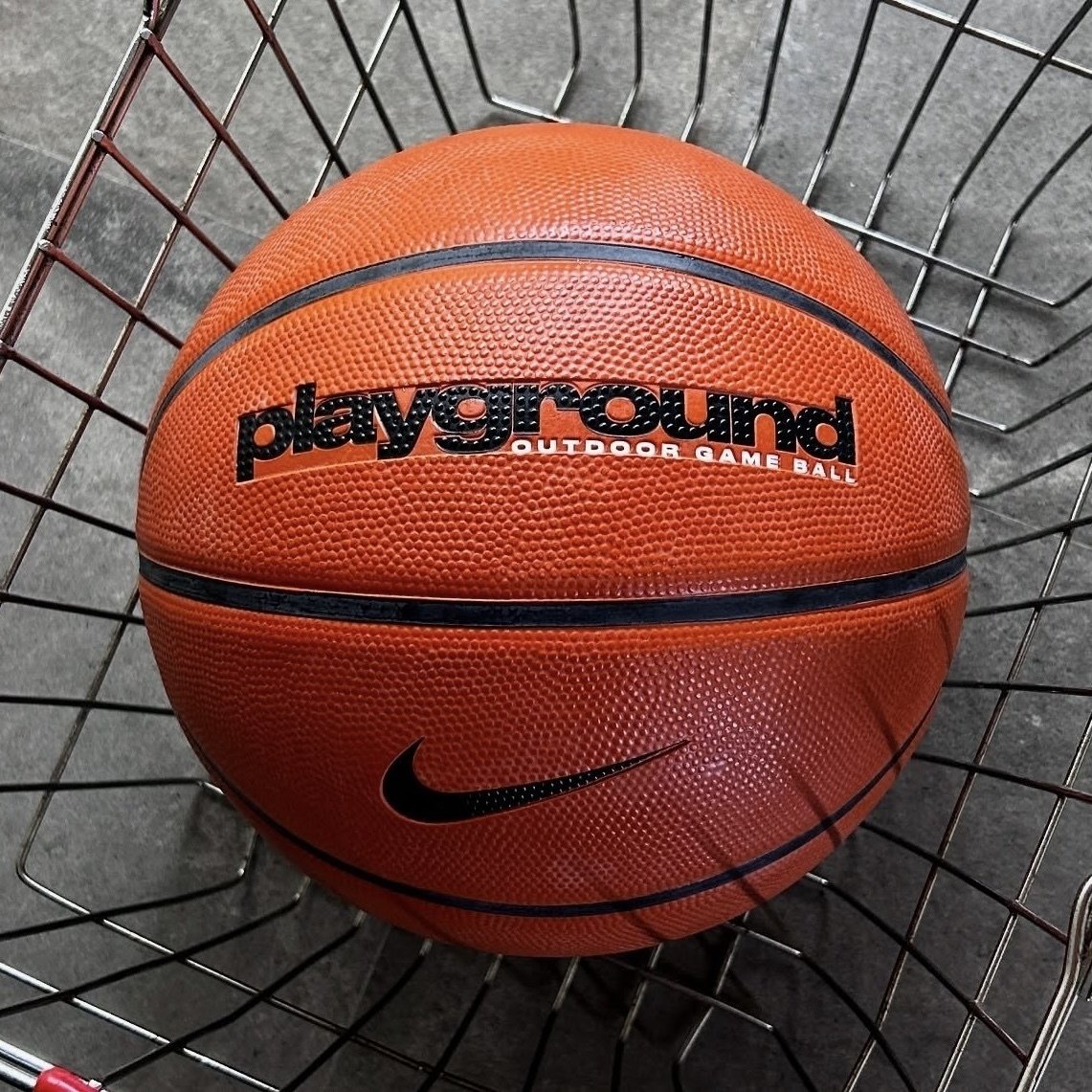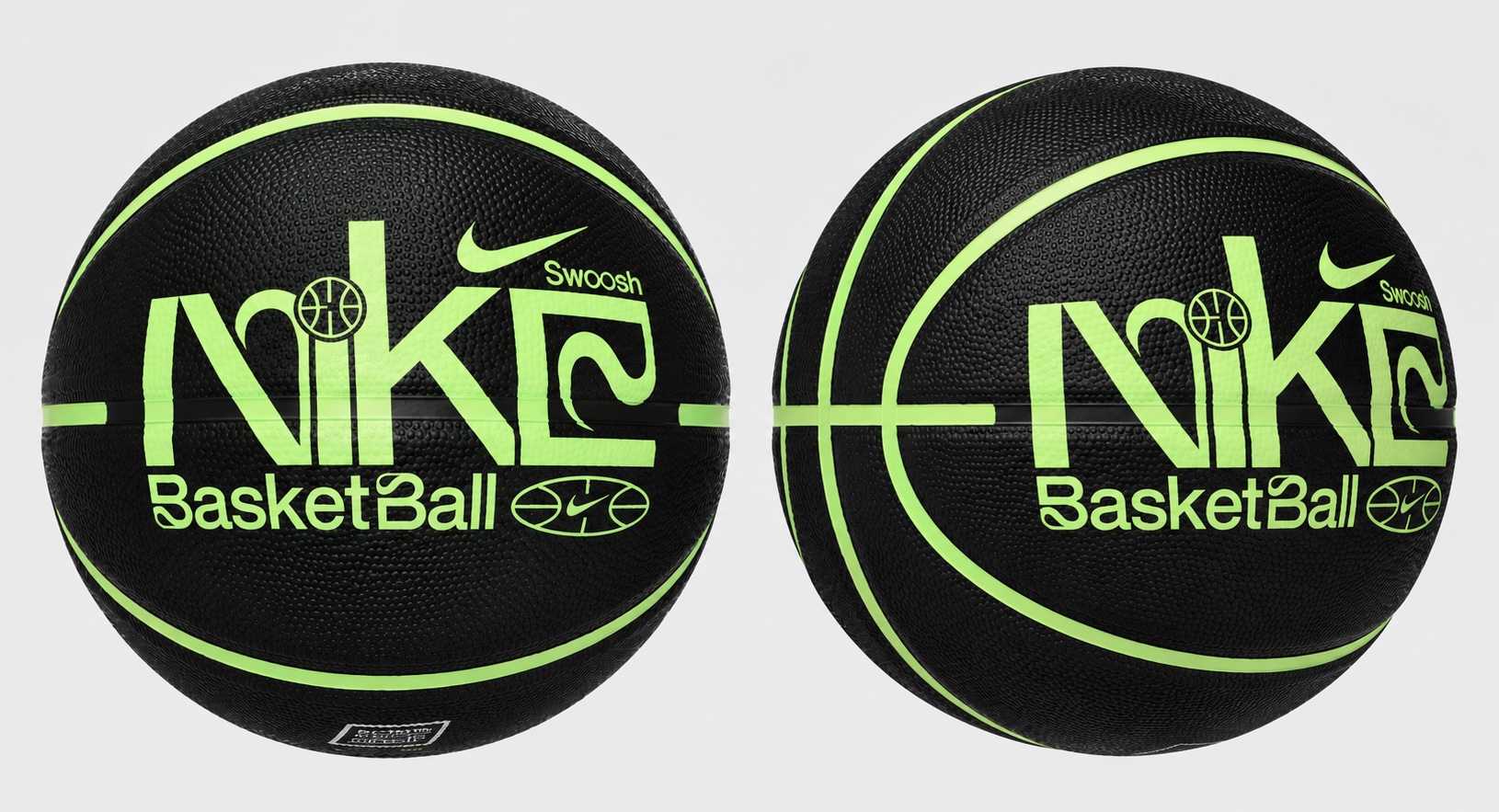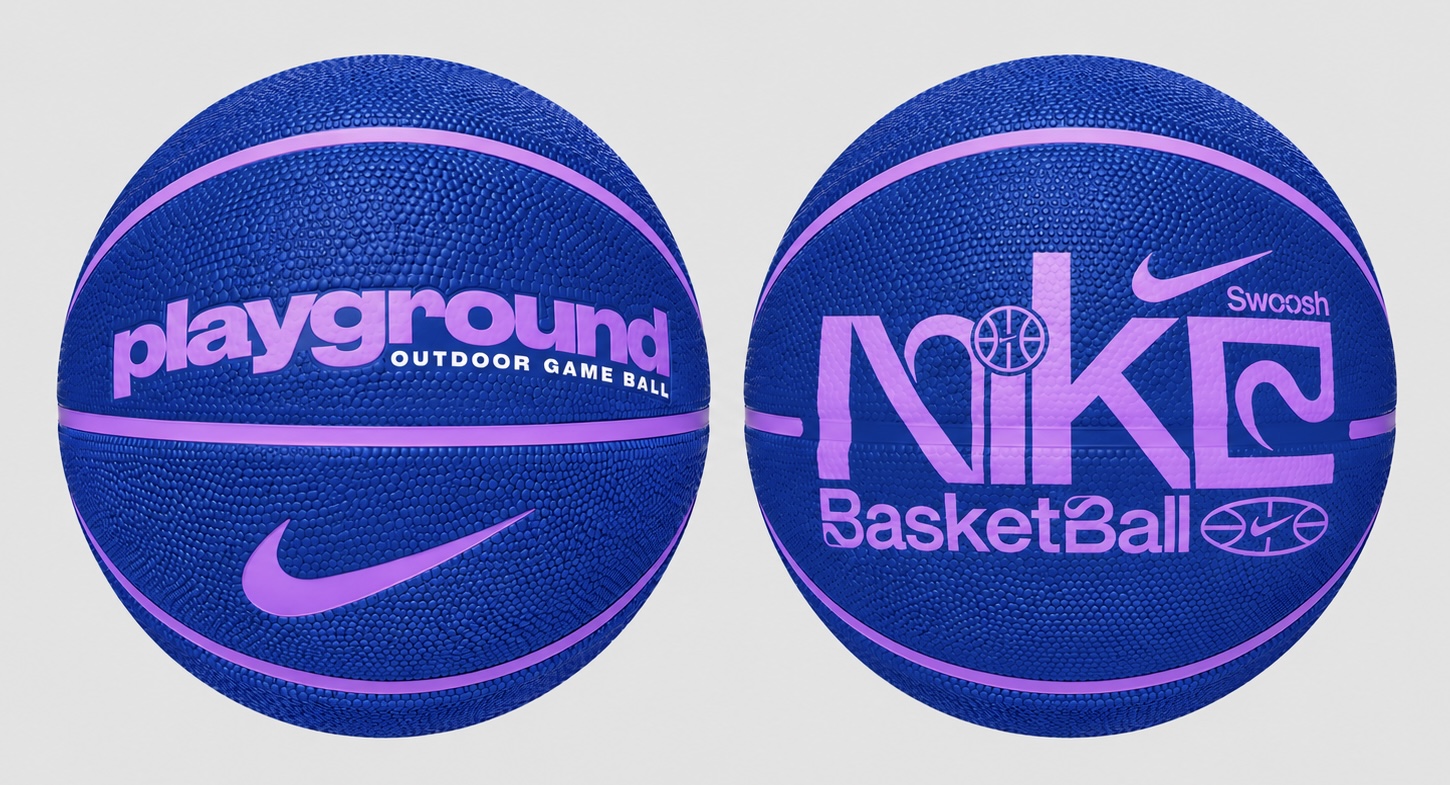
Druk and Base&Bloom in use: Nike Playground
Typefaces from our library used on basketballs
In spring, Nike released a series of custom balls specifically designed for recreational street basketball. One side of the ball features the series name — Playground — set in Druk Text Wide by Bertone Hasebe, while the other displays the brand name, with part of it set in Base&Bloom by Peter Bushuev.
Druk is a collection of extremely narrow, extremely wide, and extremely heavy styles developed by Berton Hasebe for Bloomberg Businessweek. It was intentionally designed without a style of normal width and any weights lighter than semi-bold, yet its text options work great even at the smallest sizes.
Base&Bloom is a kind of response to the lack of display sans type and the abundance of swashed serifs. Its swashes serve as an integral part of the glyph rather than a decorative accessory. Certain glyphs have as many as ten graphic variants, ranging from exquisite calligraphy to bold brutalism.